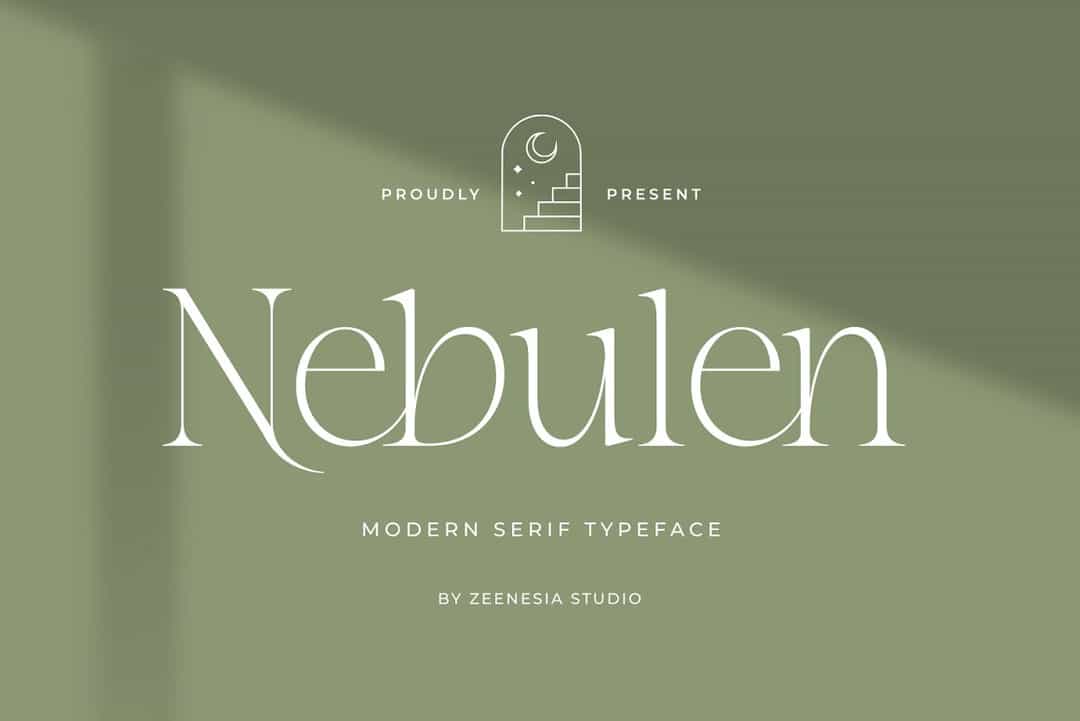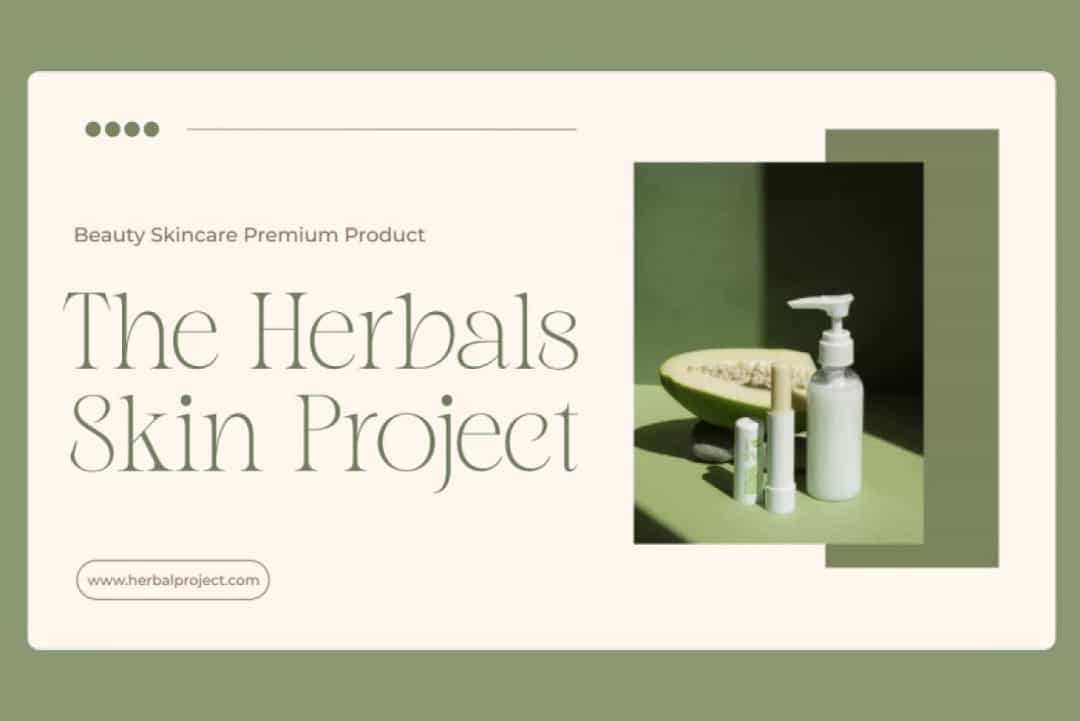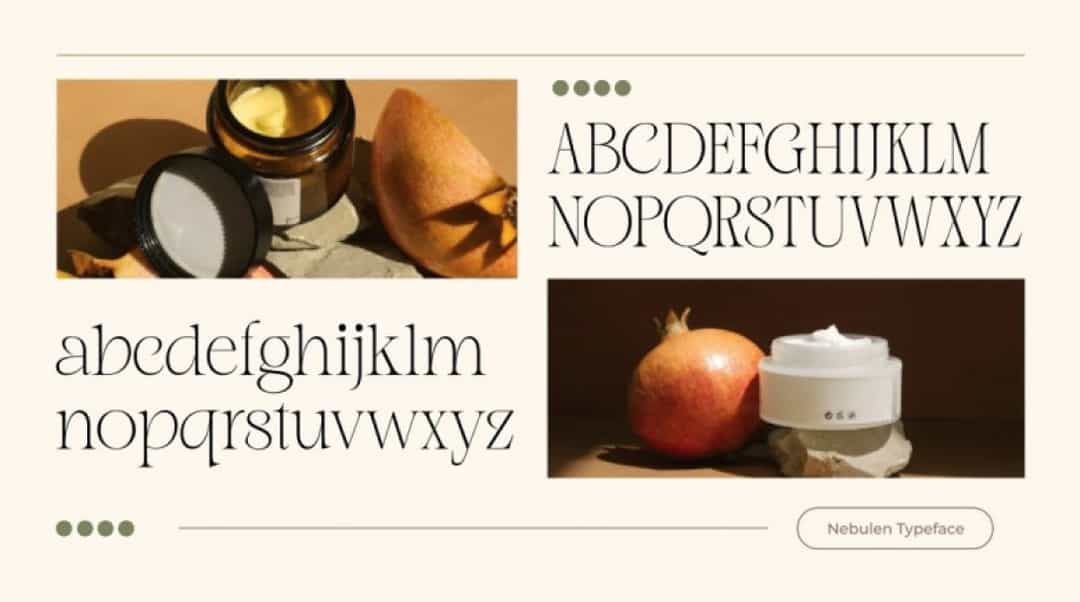
Nebulen is an elegant feminine serif typeface created with romantic and charming characteristics. Equipped with Open Type features such as stylistic Alternates and Ligatures to make any project appear beautiful, Nebulen is sure to add glamour and romance.